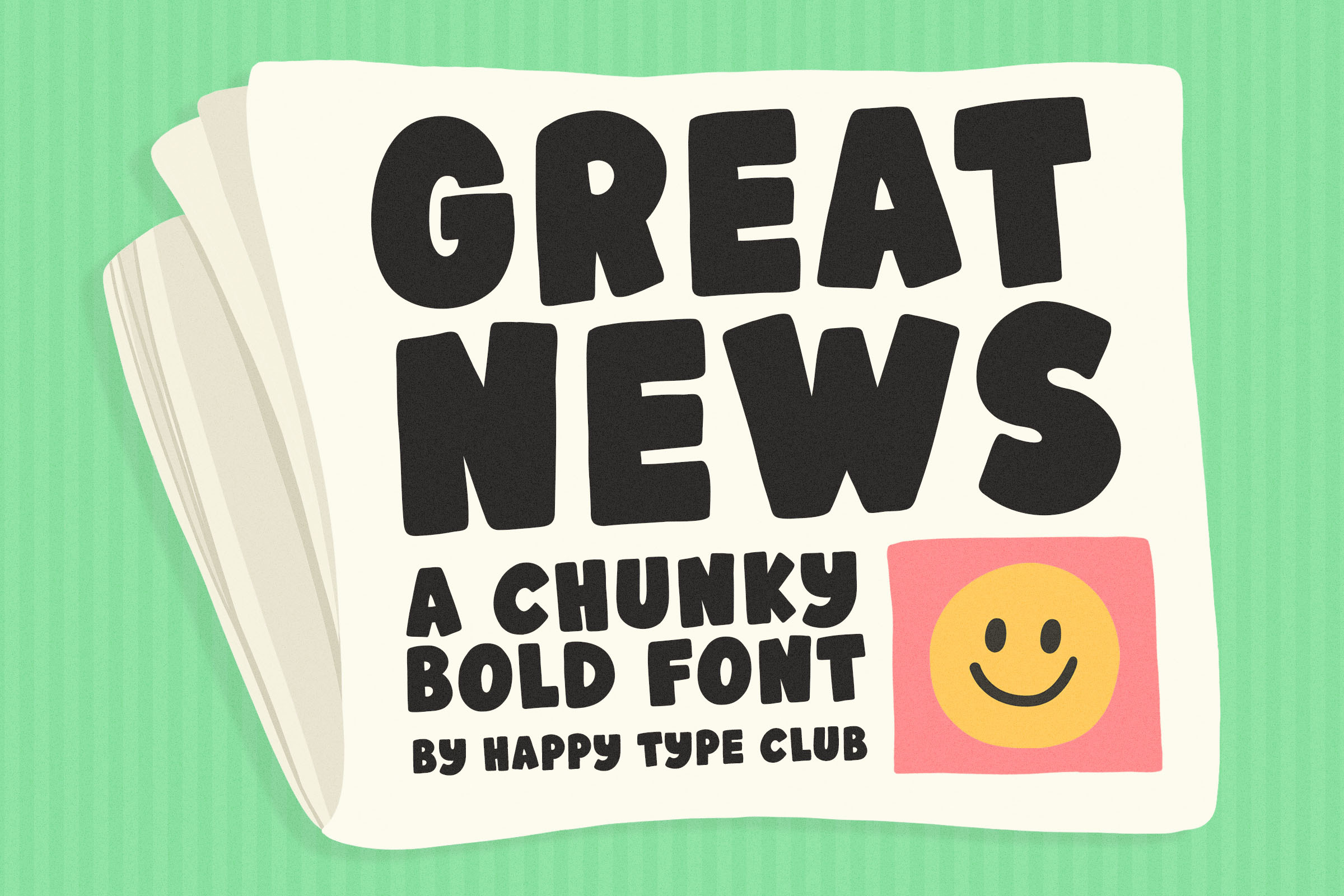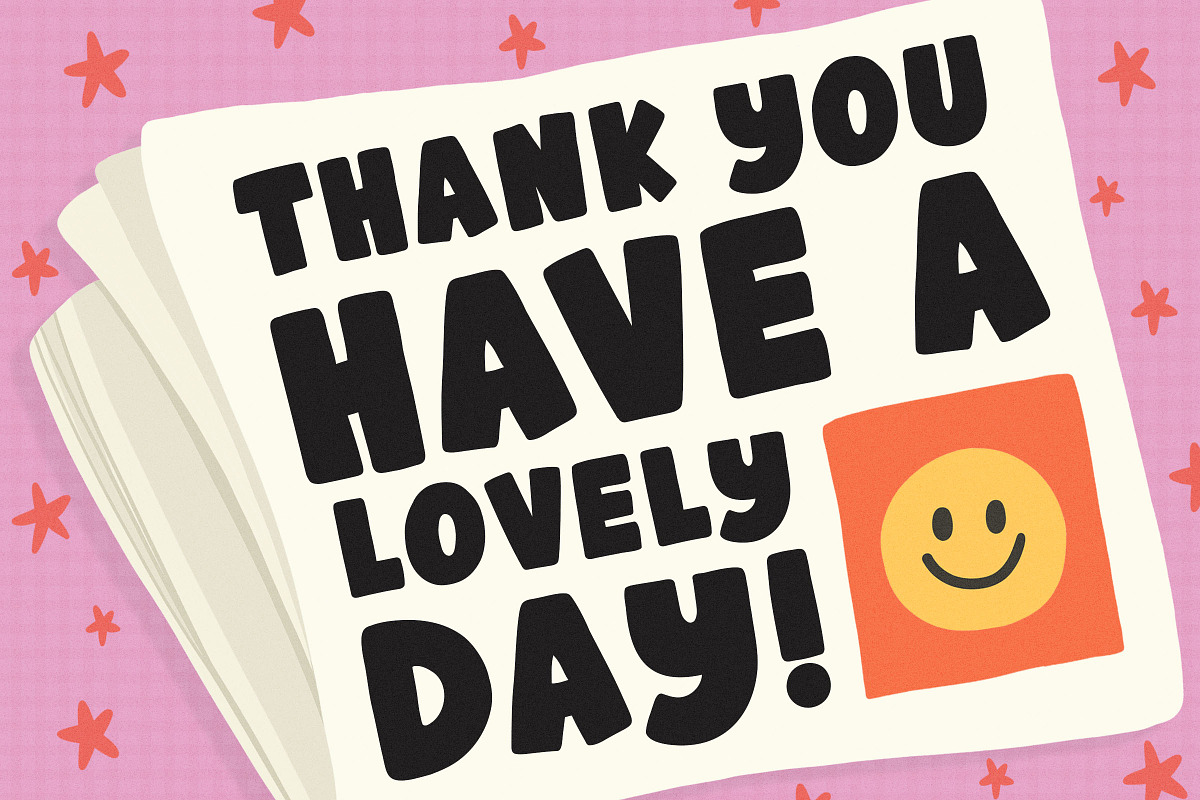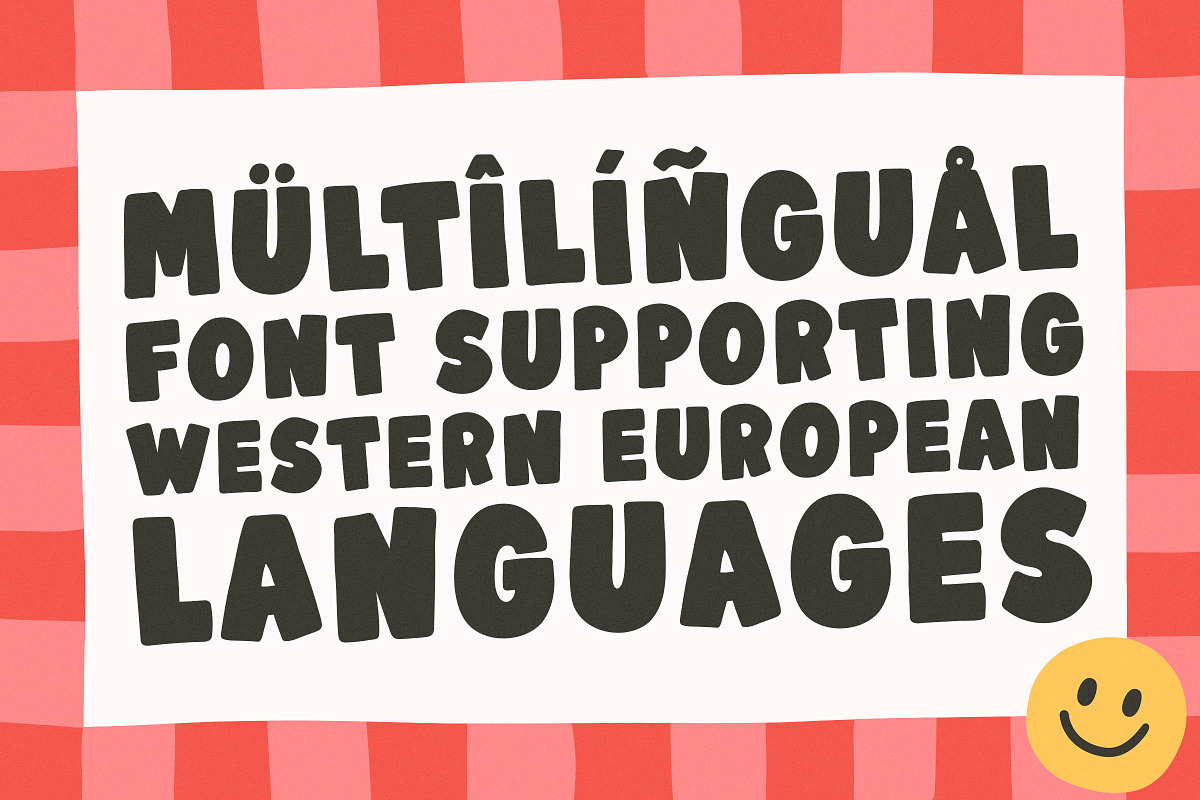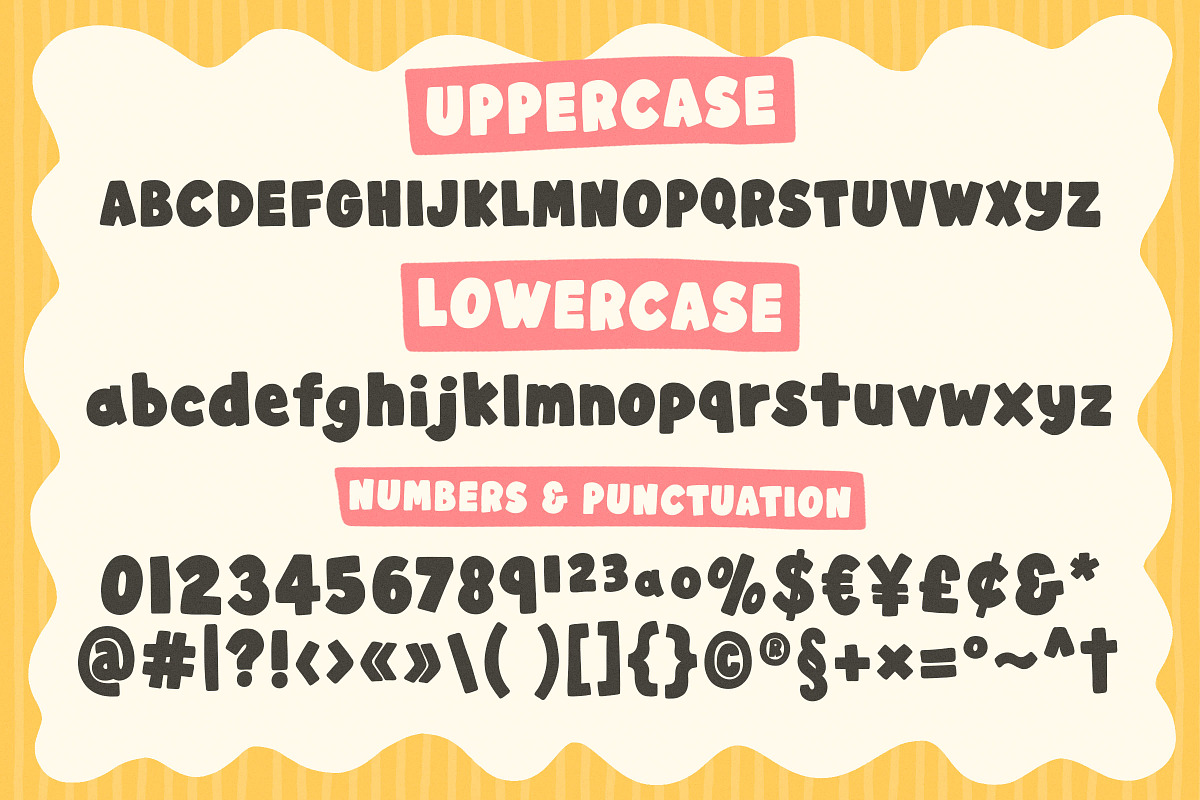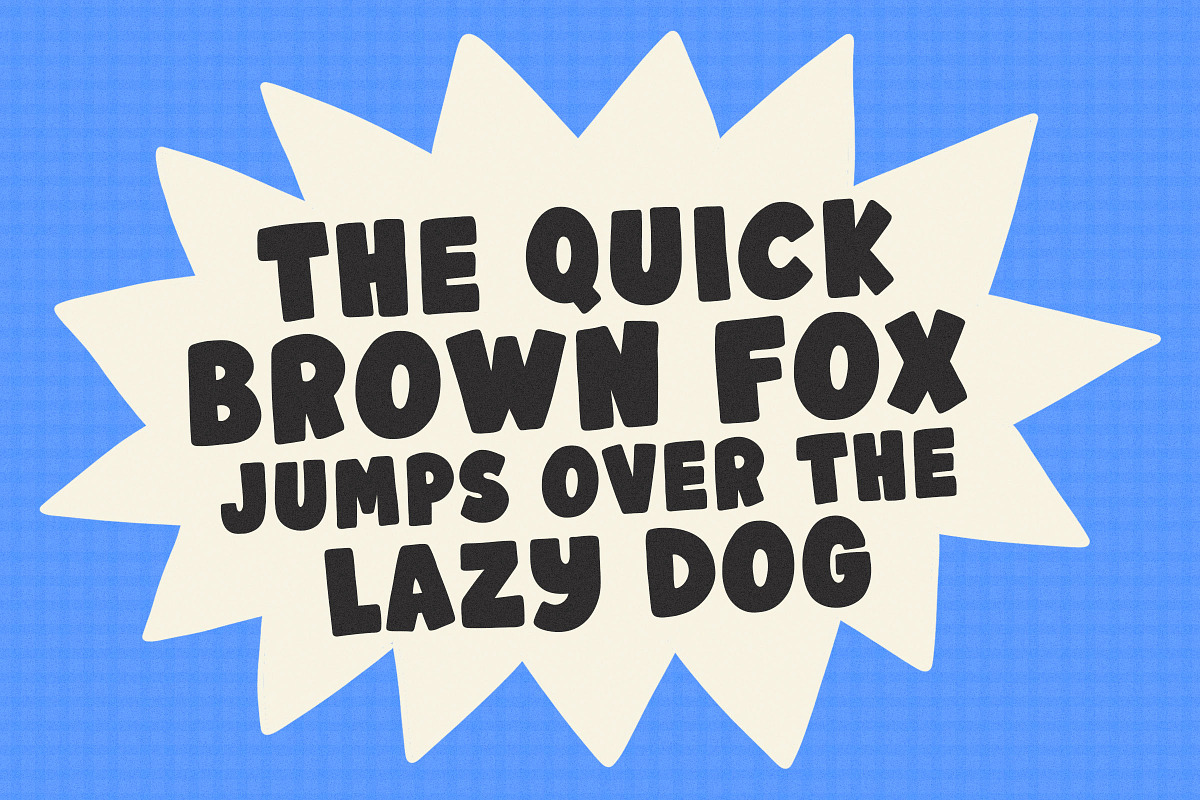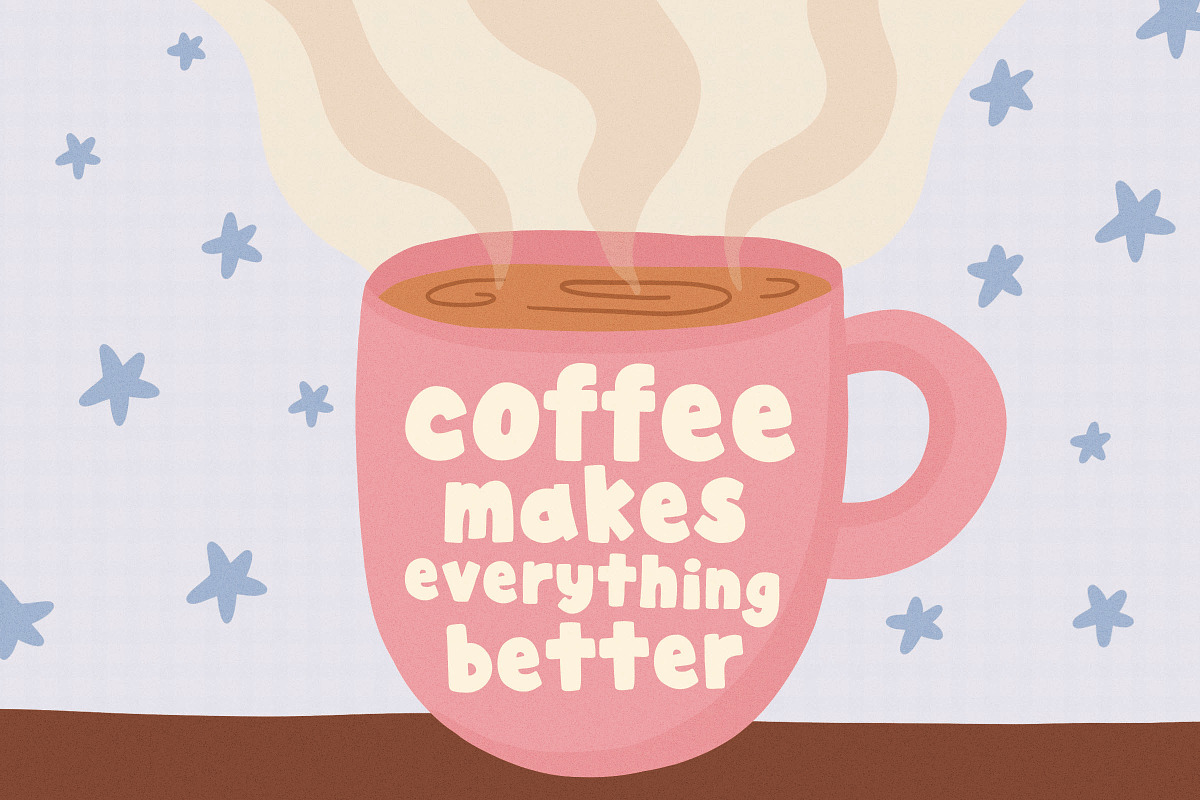
Great News - A Chunky Bold Font
Great News is a chunky bold sans serif typeface perfect for any fun quirky design work! This font can be used for anything such as t-shirt designs, phone cases, greeting cards, invitations, mugs and so much more! Get creative!